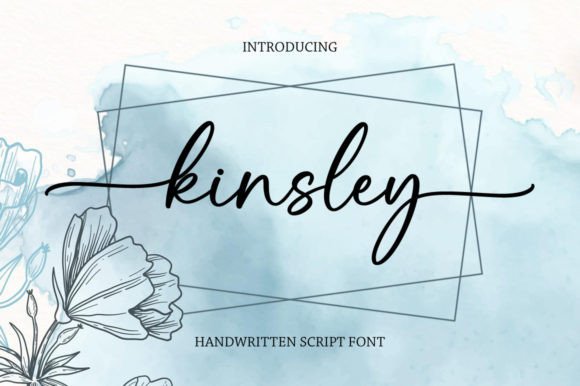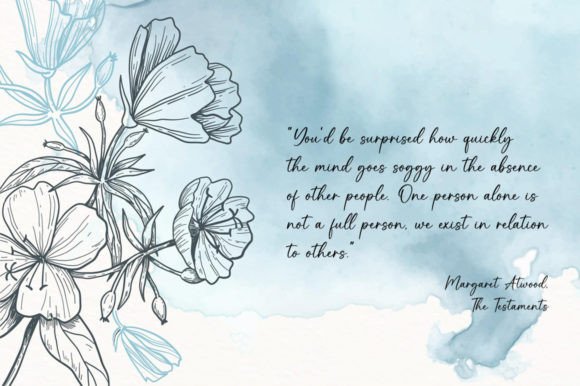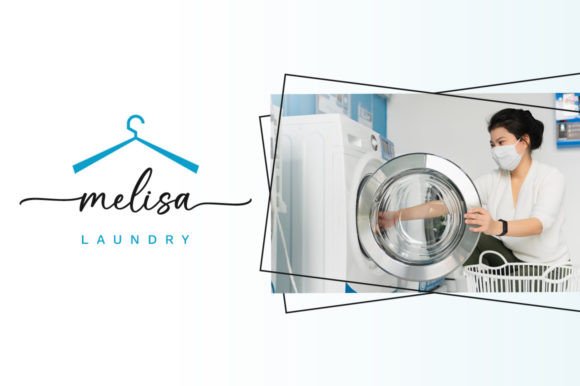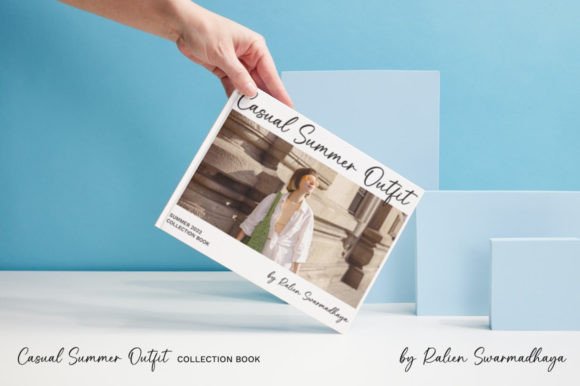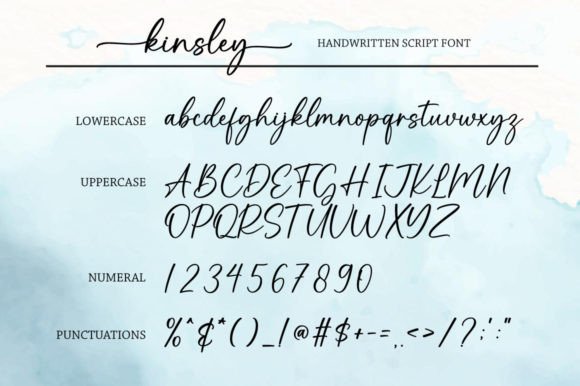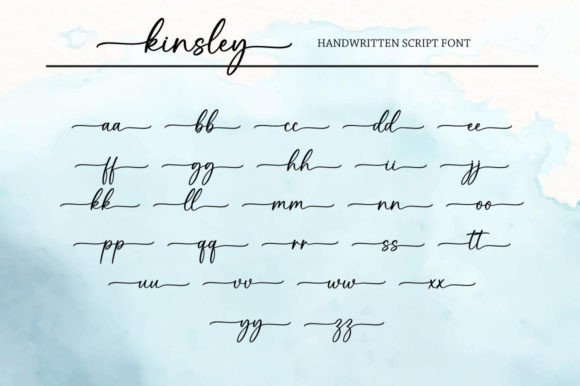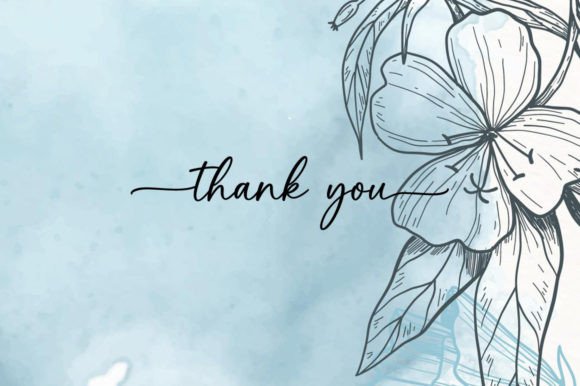
Kinsley Font
About Kinsley Font
Kinsley is a graceful and enduring handwritten font, representing an excellent option for designing eye-catching logos, crafting compelling branding, and accentuating meaningful quotes. With its classic charm and elegant aesthetics, Kinsley stands out as a versatile typeface that can enhance various design projects.
Kinsley’s PUA encoding ensures seamless access to a wide array of glyphs and swashes, granting you the creative freedom to embellish your designs with intricate and personalized details. Its timeless appeal adds a touch of sophistication to your work, making it a go-to choice for projects that require a blend of style and elegance.
Whether you’re in the process of creating impactful logos that leave a lasting impression, developing branding materials that convey uniqueness and class, or composing quotes that resonate with your audience, Kinsley empowers your creative endeavors with a timeless and captivating charm. With this font, your designs will shine with an enduring allure that captures the essence of classic beauty.